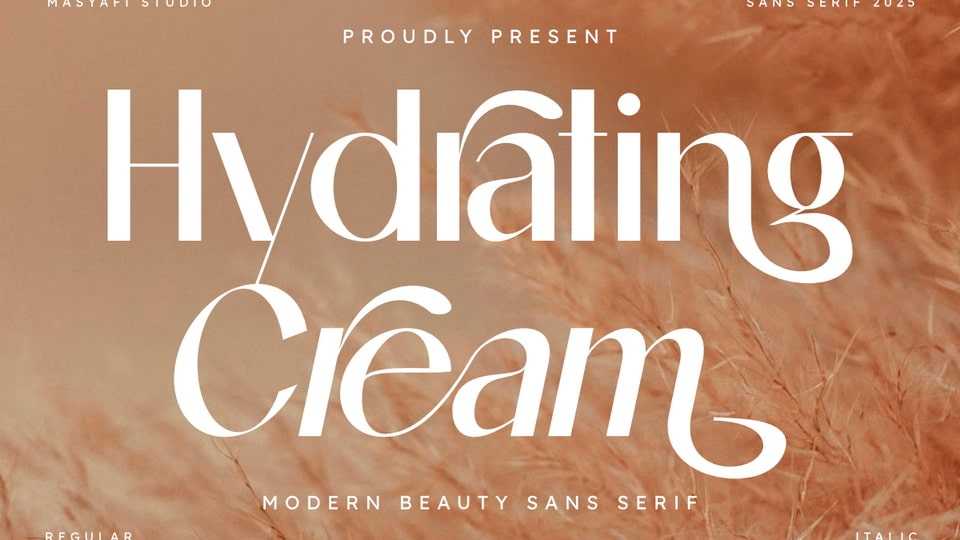
Download Hydrating Cream font, a modern sans serif typeface designed to bring elegance and sophistication to your creative projects.
Designer: Masyafi Studio